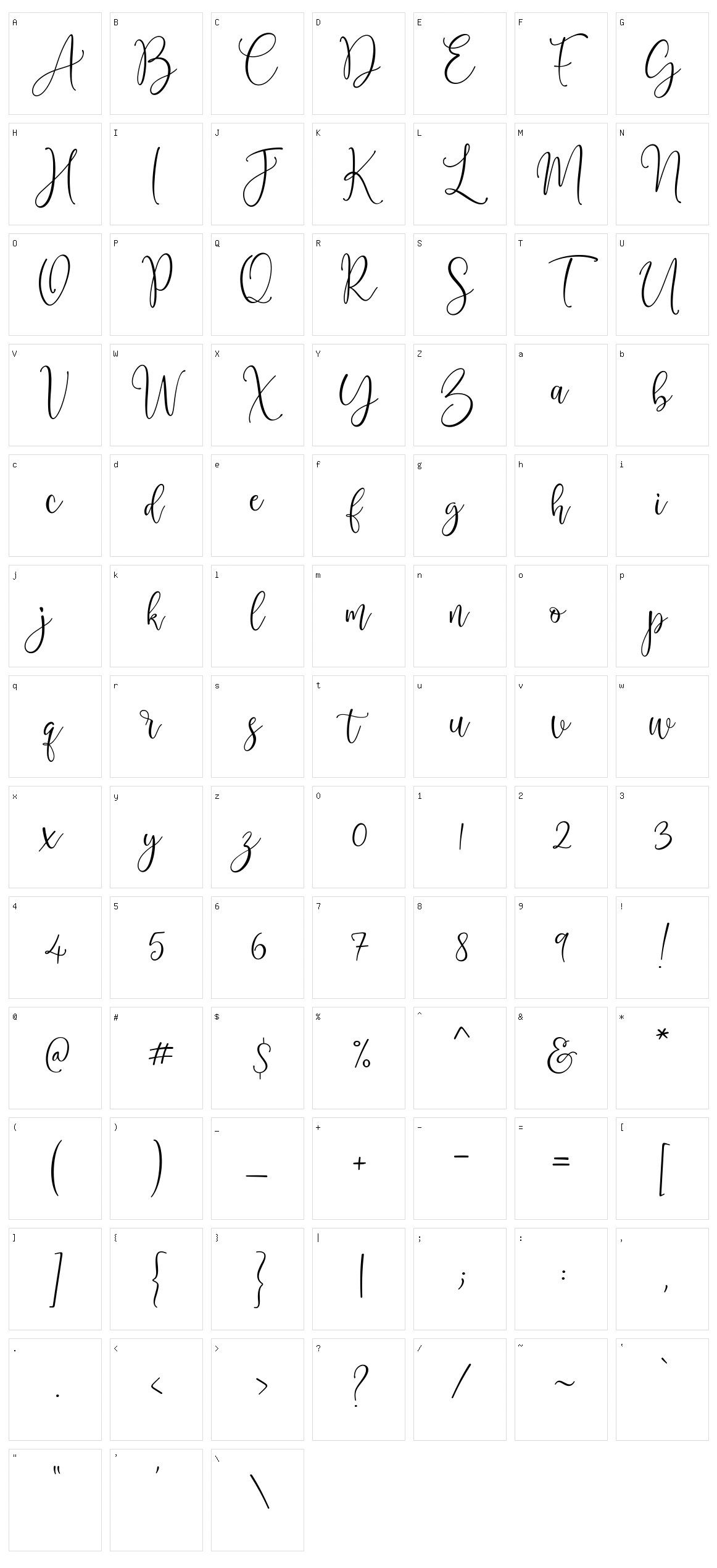
The free font Cattieshine is carefully designed by Sholeha Anata, showcasing a thoughtful balance of creativity and usability and falls under the Script font style. When you download the ZIP file, it contains only 51.41 KB of font files, making it lightweight and quick to download. Please review the license details below to understand permitted usage and distribution rights. If license information is not available, we recommend using this font for personal projects only or contacting the author directly for commercial usage permissions.